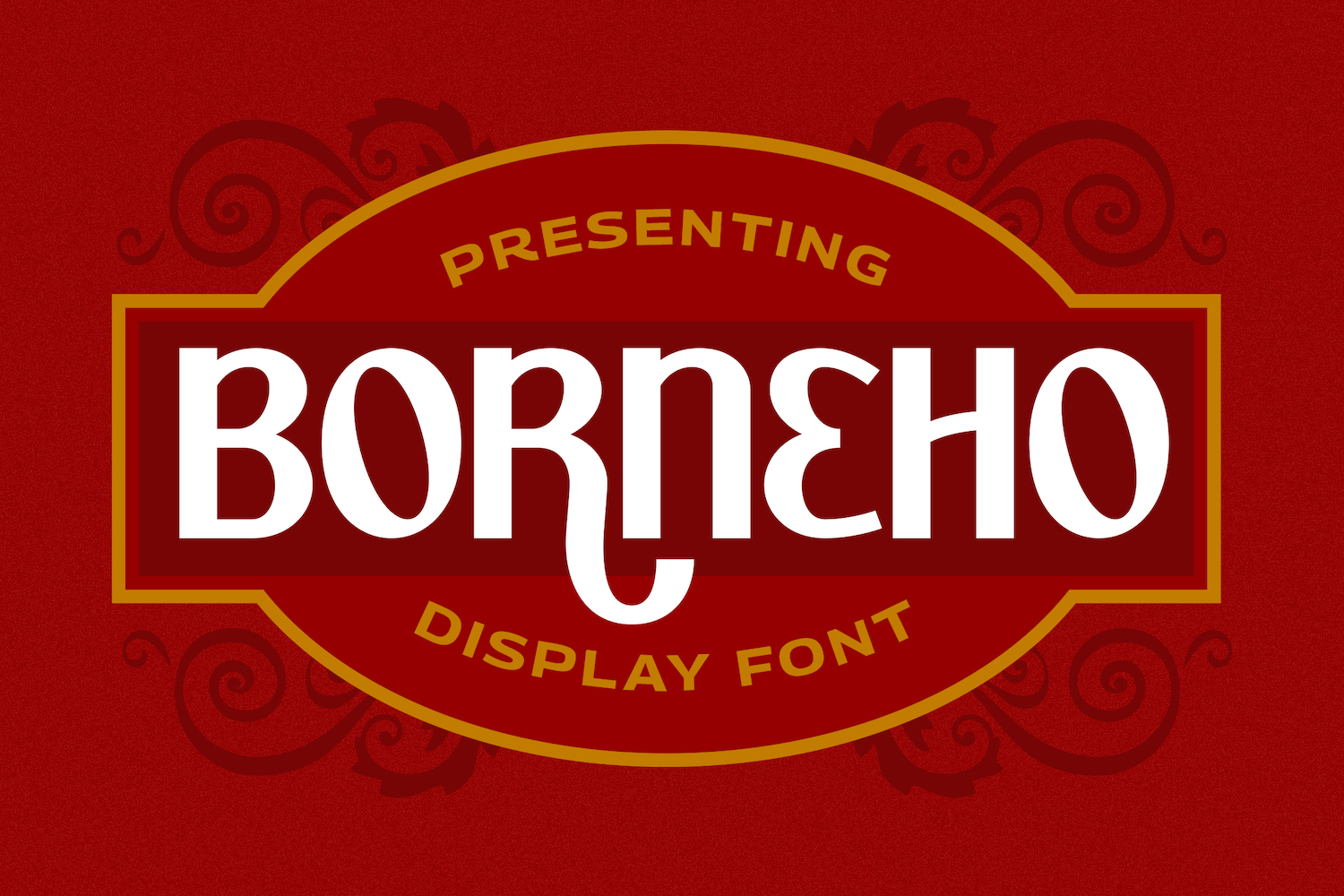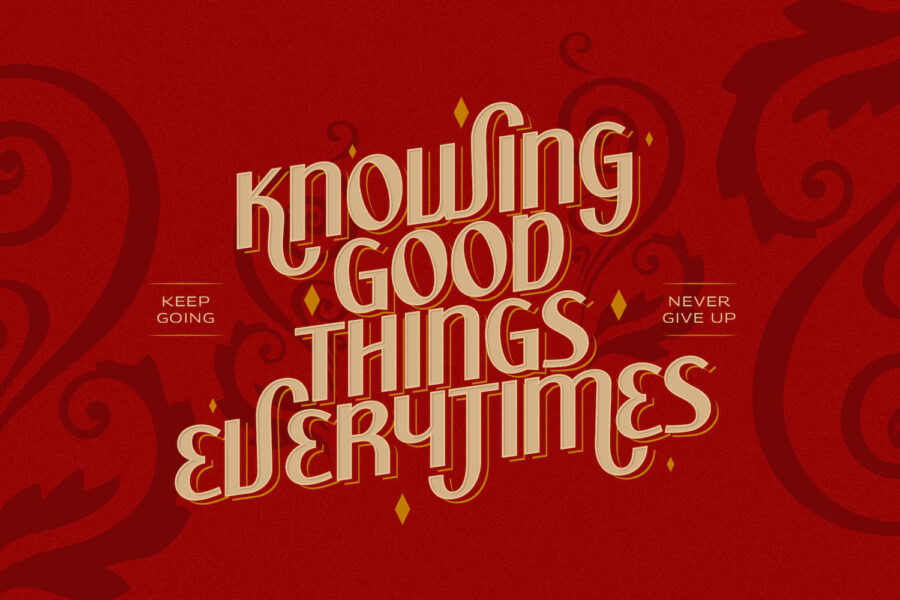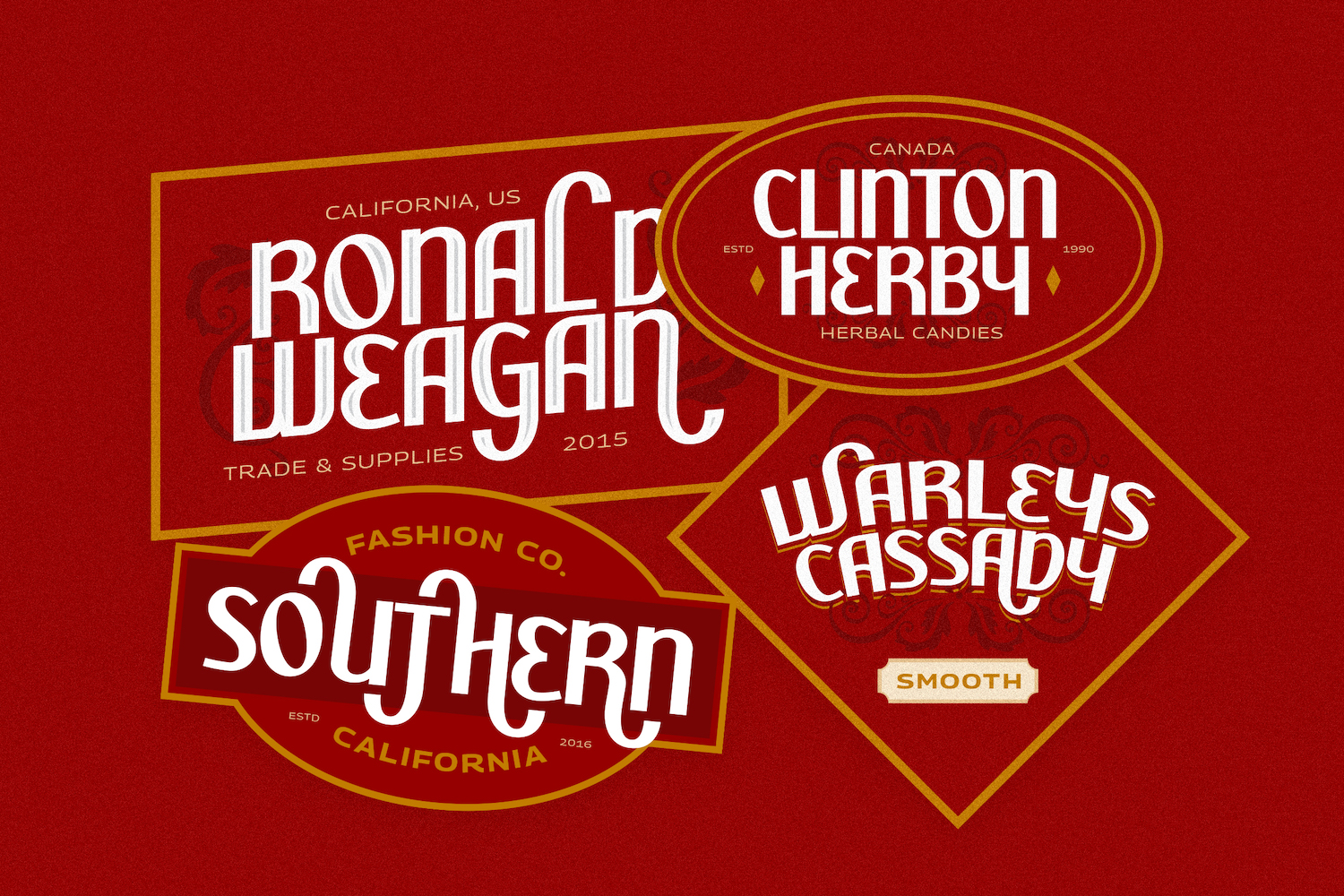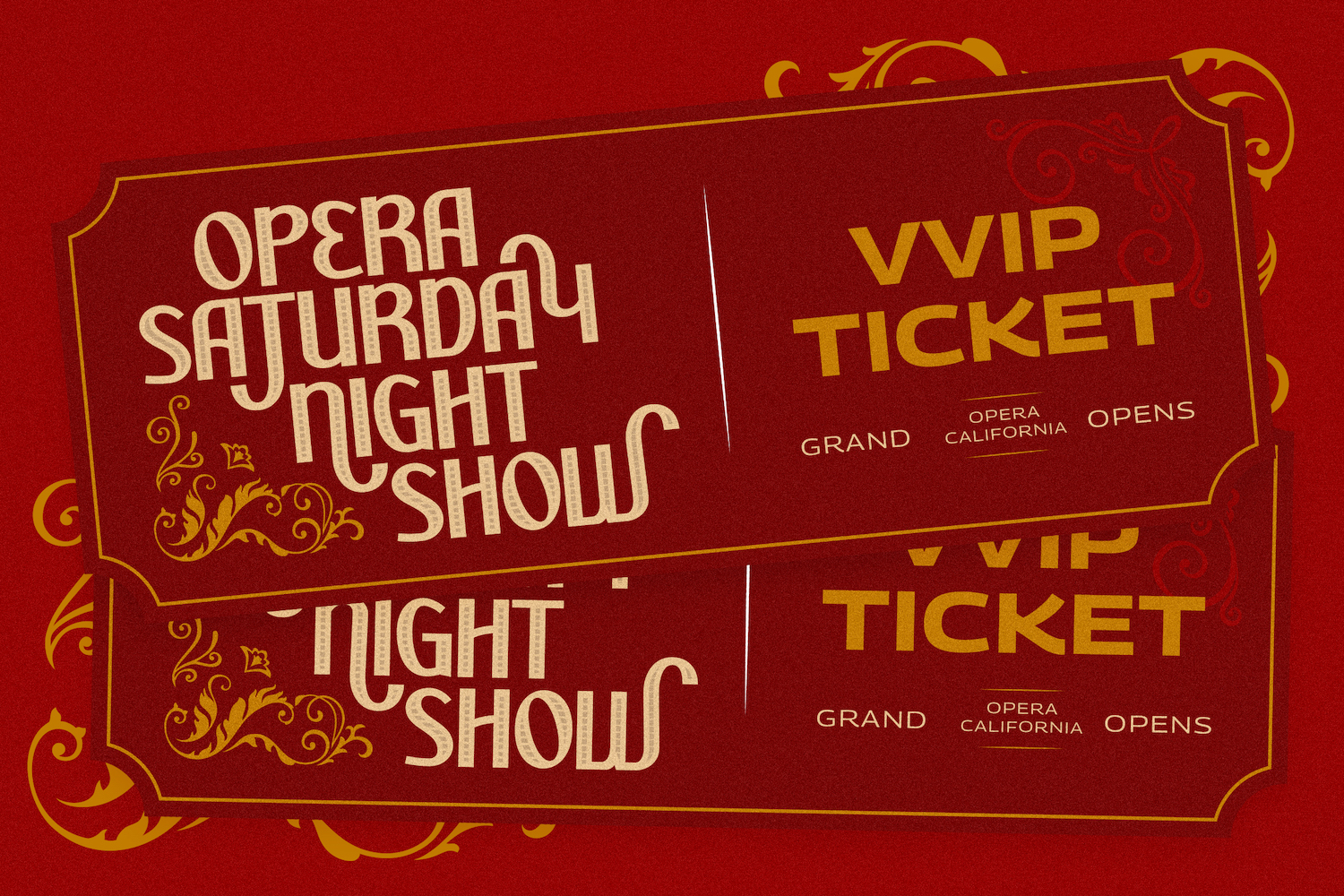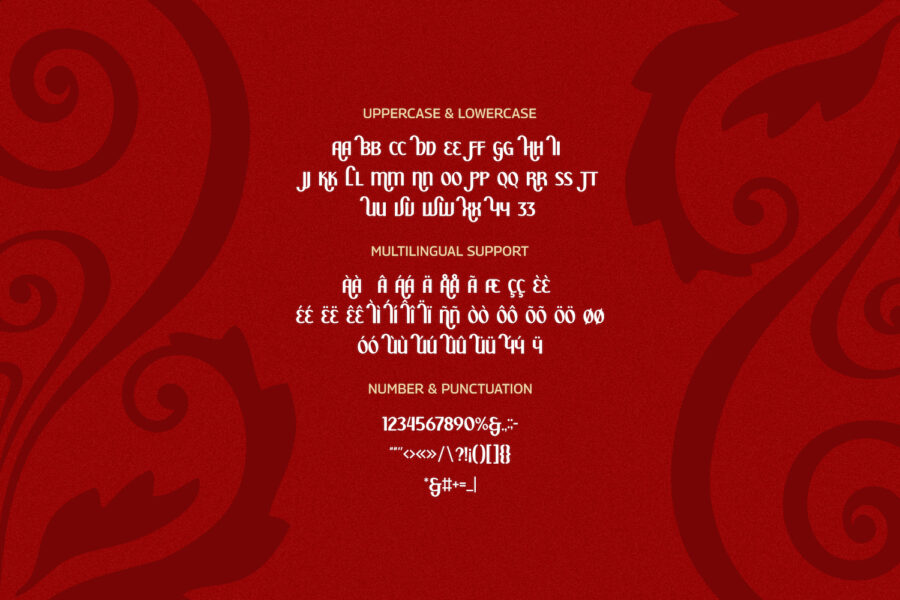
Borneho is a bold and expressive display font that brings an exotic flair to modern typography. Its striking curves and extended terminals give each letter a distinctive personality while maintaining strong legibility. Inspired by vintage signage and classical ornamental type, Borneho stands out beautifully in branding, packaging, posters, and label designs.
The typeface combines geometric form with graceful swashes, making it ideal for logos that want to capture a heritage or artisanal identity. It features uppercase and lowercase letters, multilingual support, and a full range of punctuation. Making it both stylish and functional for a variety of creative applications.